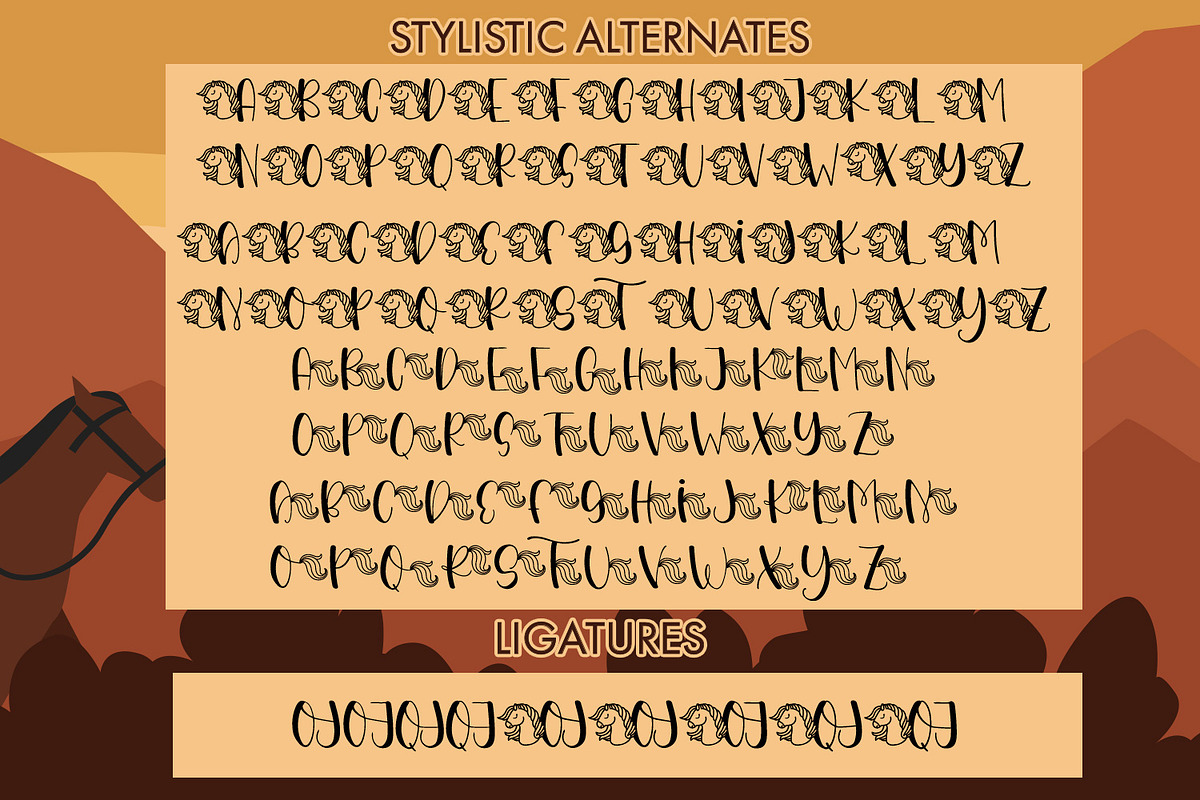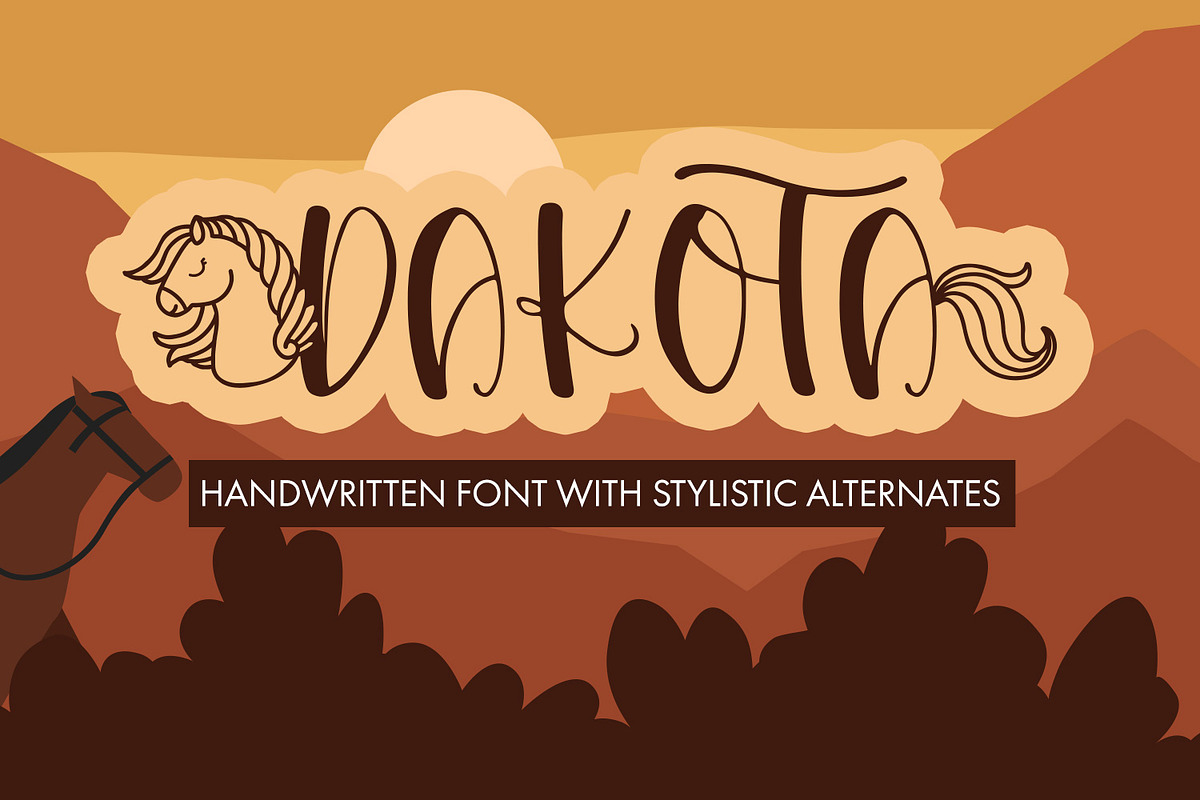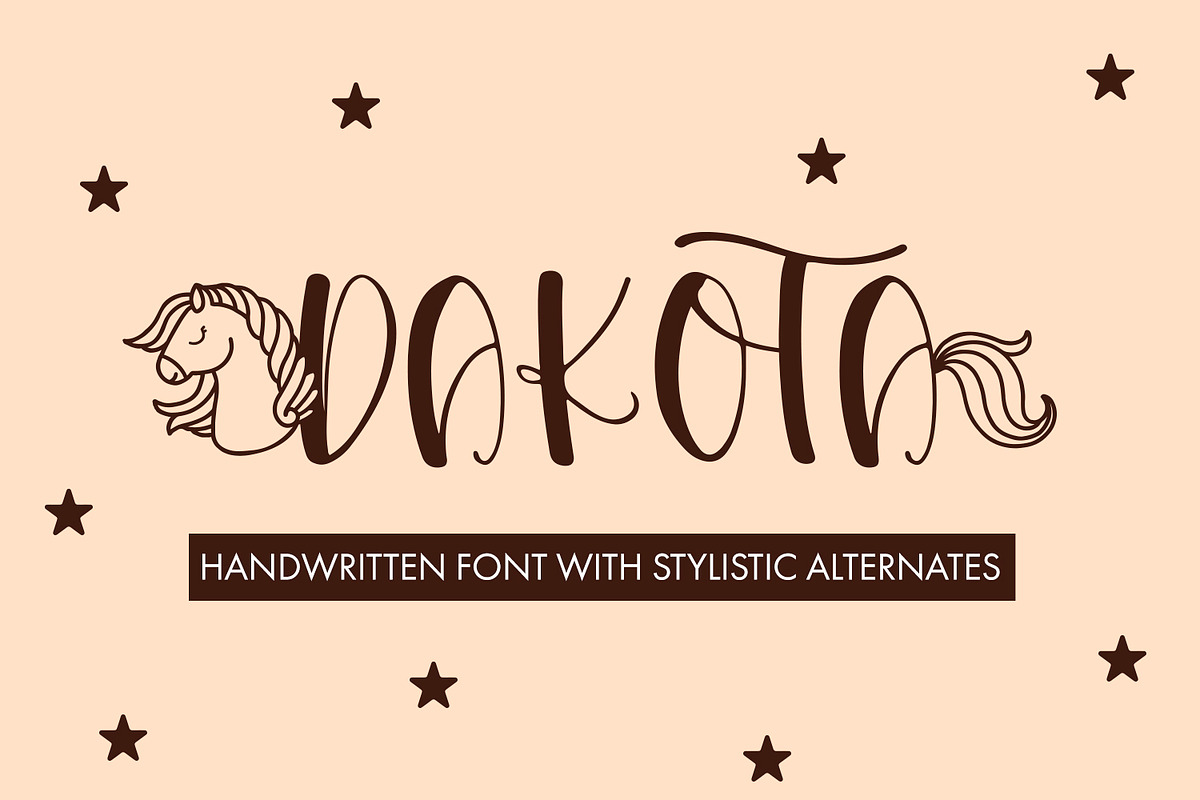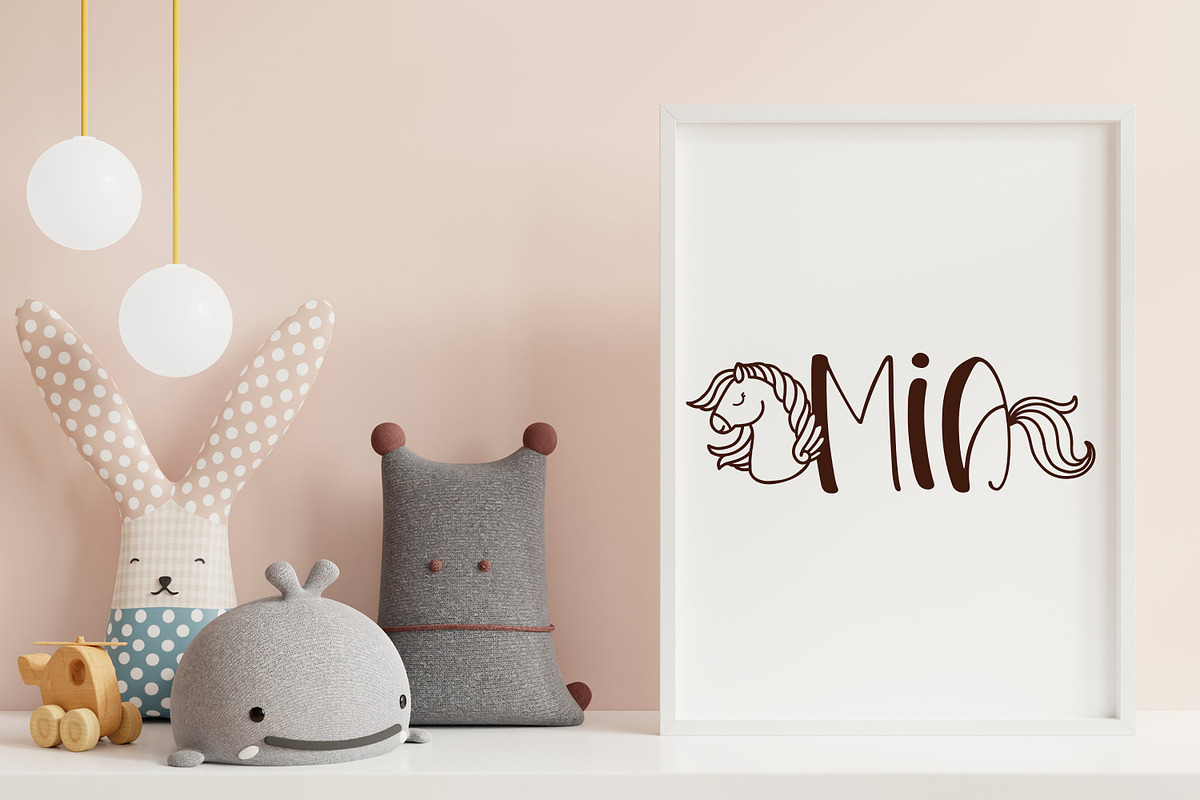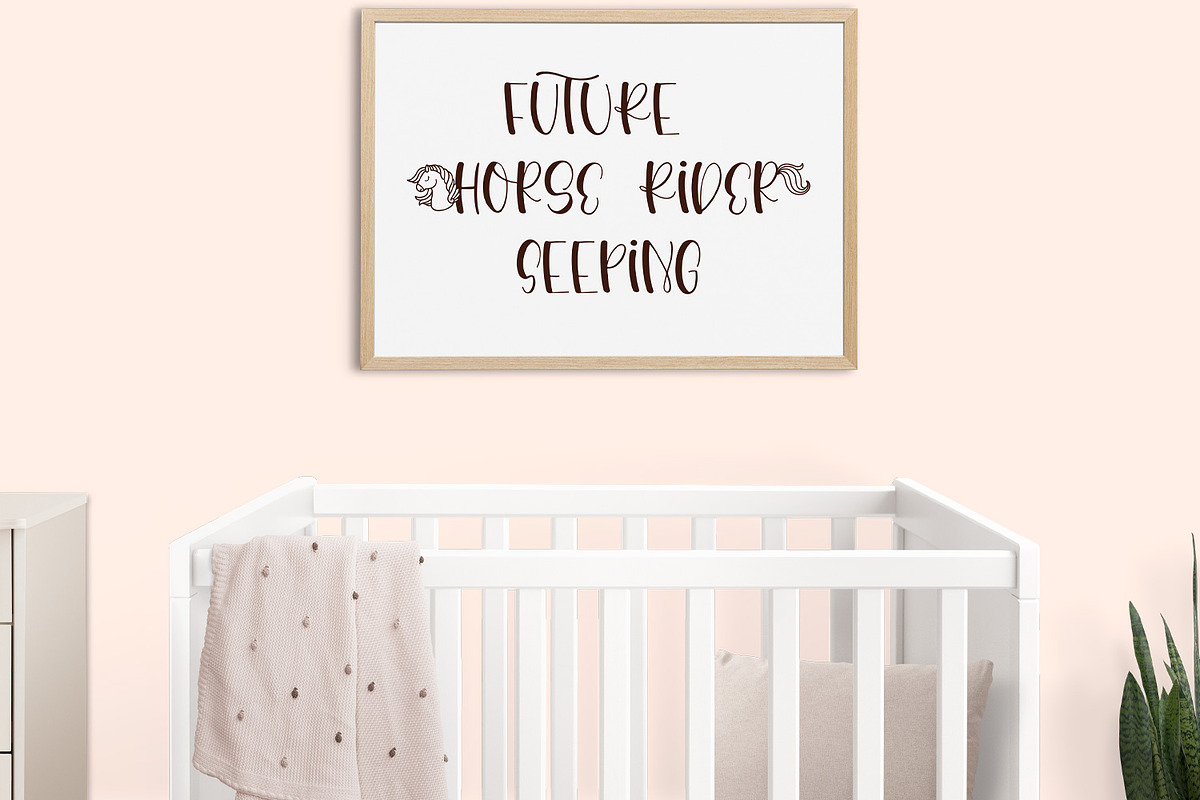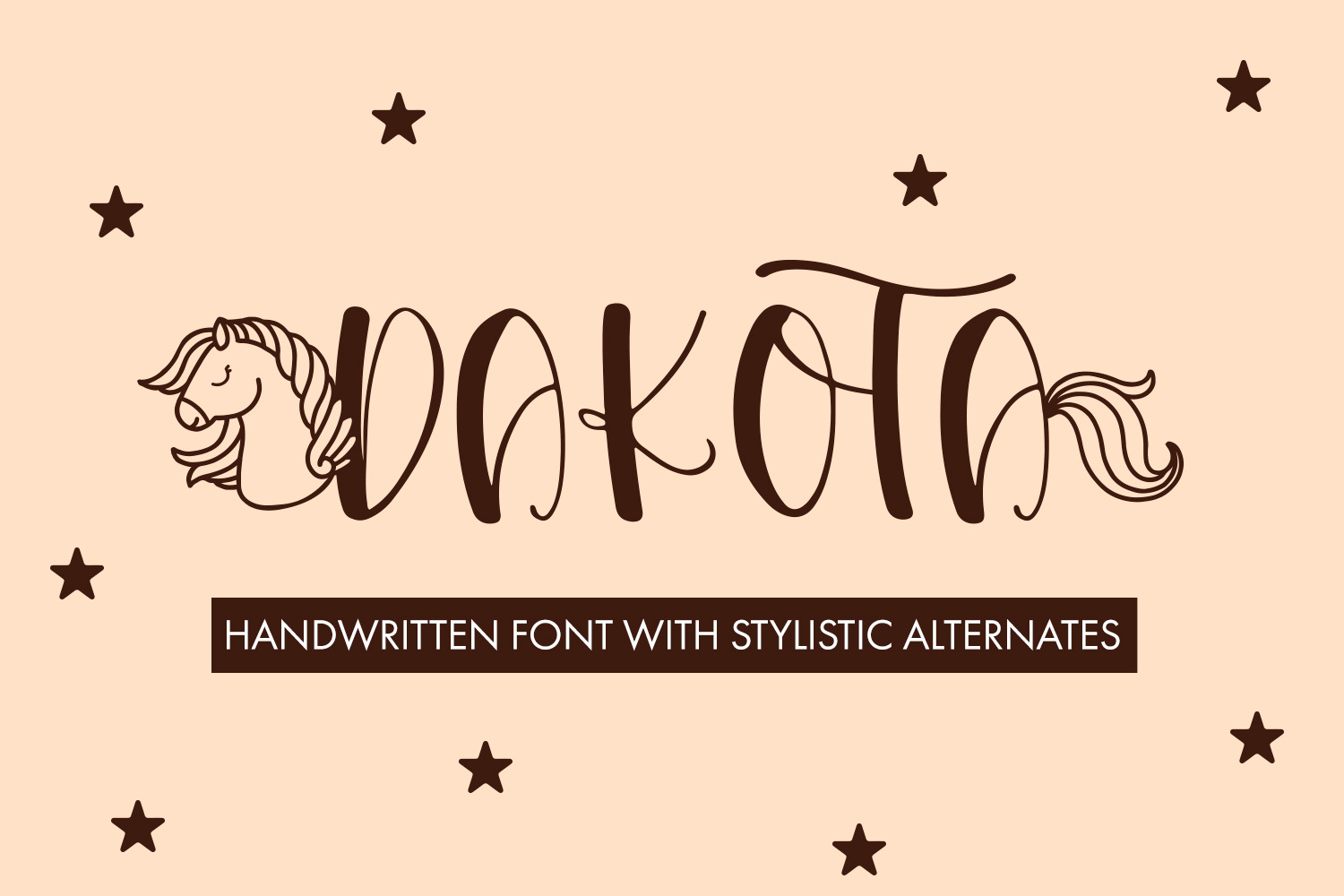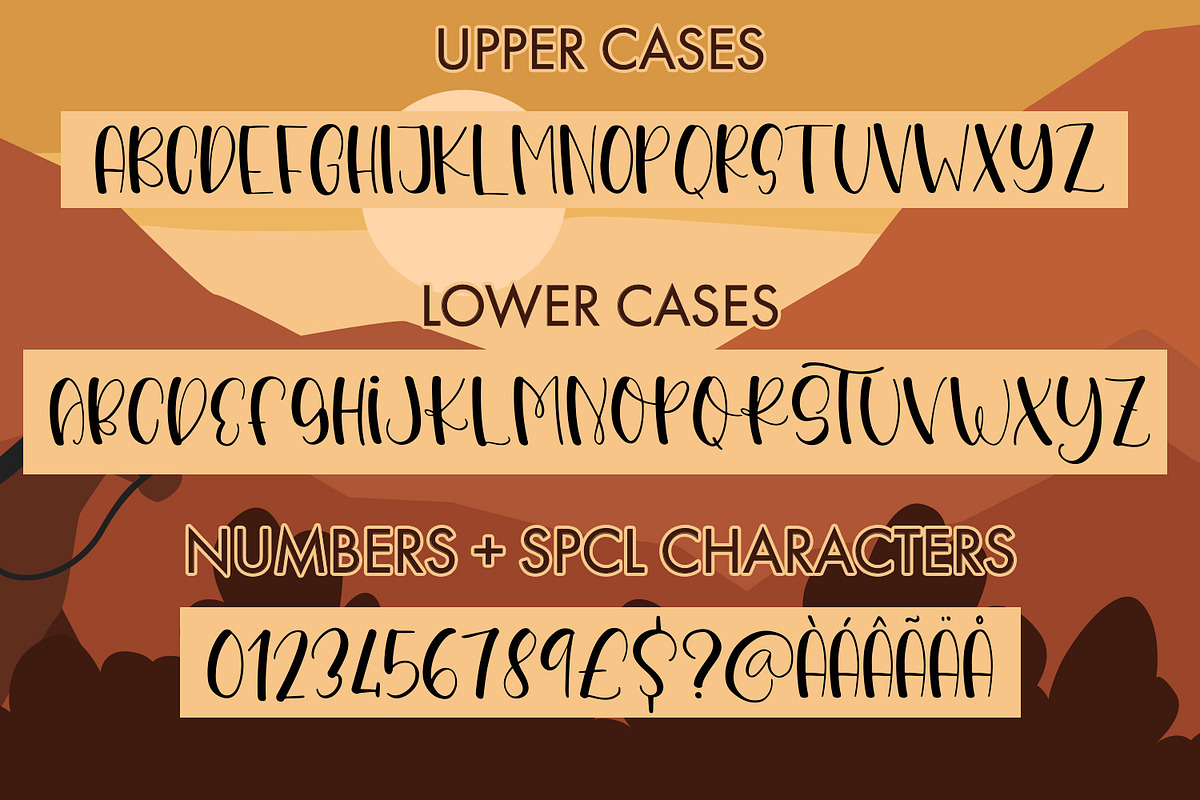
Dakota A Horse Font
The Whimsical Uppercase Font with Equestrian Flair! Dive into a world of playful design with this unique font. Each letter features a stylish horse head and a flowing horse tail, adding a touch of equine charm to your text. 'HorsePlay' is perfect for creating eye-catching, quirky designs that stand out. Unleash your creativity and let your text gallop with personality!